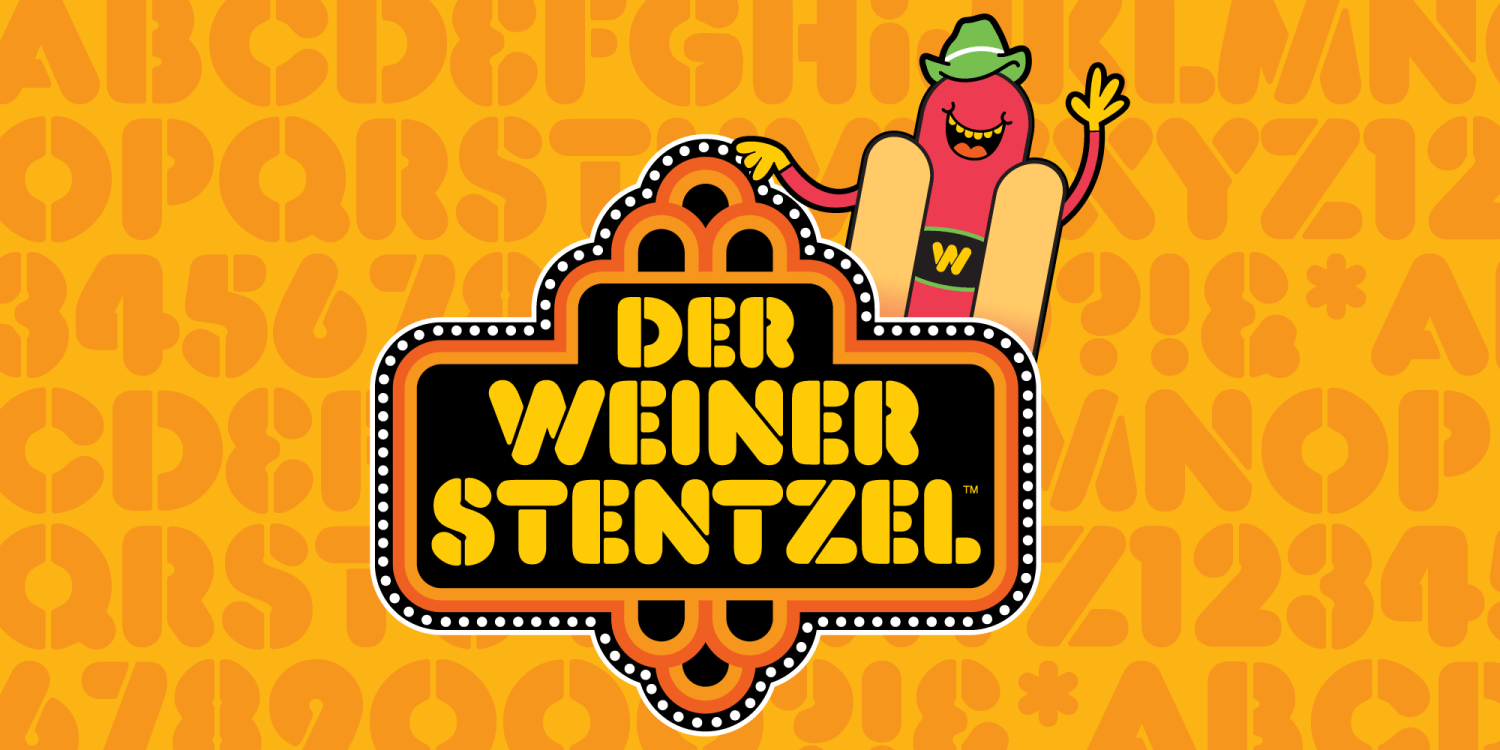
Der Weiner Stentzel
Lately I've been realizing that I use stencil fonts for everything. People tell me to mix it up, stencil doesn't go with every design. Not only do I disagree, I suggest we go back in time where there was only one font invented. Then, I will change the future by destroying that font and putting this one in its place. Finally, I will place a copyright on the alphabet and prohibit future designs forever! Either that, or I just open up a hot dog stand that is a blatant rip-off of a famous franchise and just use this font for the logo design. Either way, I'm still using stencil fonts and we're all still big winners!